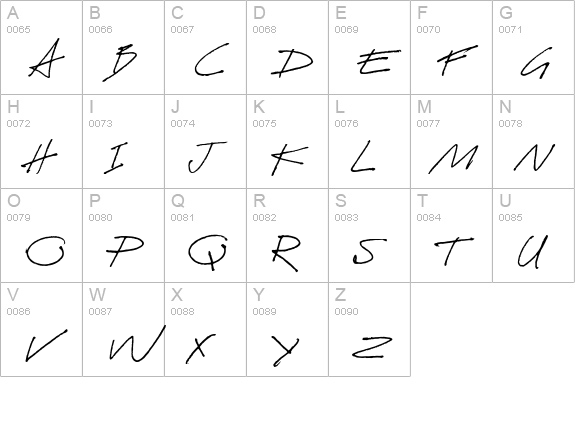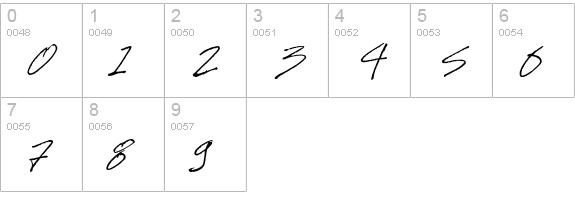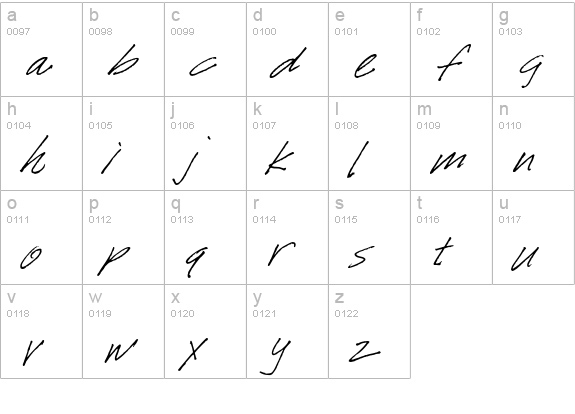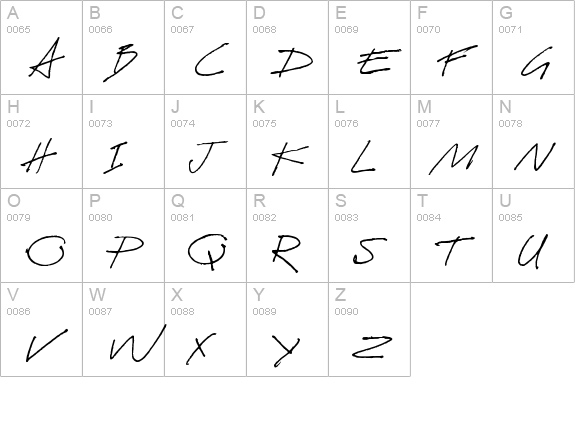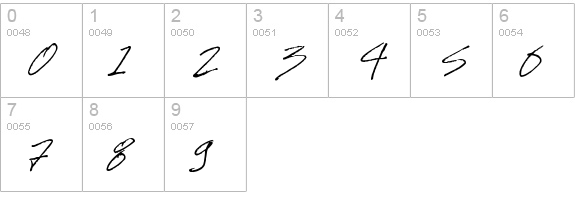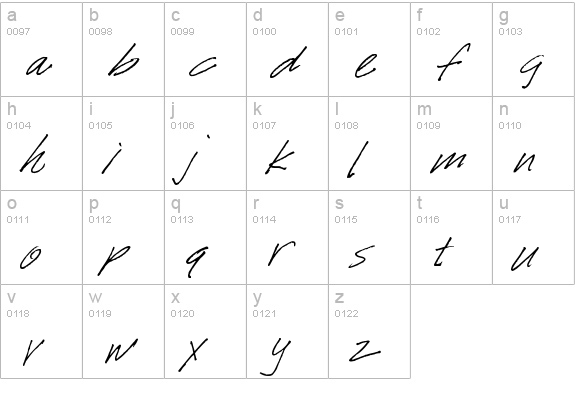
Ocalla Hand BTN Font Details
Ocalla Hand BTN font is a unique and stylish typeface that exudes creativity and charm. With its hand-drawn appearance and intricate details, this font is perfect for adding a personal touch to your designs. The flowing lines and organic feel of Ocalla Hand BTN make it ideal for projects that require a warm and inviting look. What's even better is that Ocalla Hand BTN font is available for free download at FontsMarket.com. This means you can easily access this beautiful font and use it in your projects without any cost. Whether you're working on invitations, posters, or any other creative design, Ocalla Hand BTN will surely make your text stand out with its distinctive style. Download it now and add a touch of elegance to your next project!